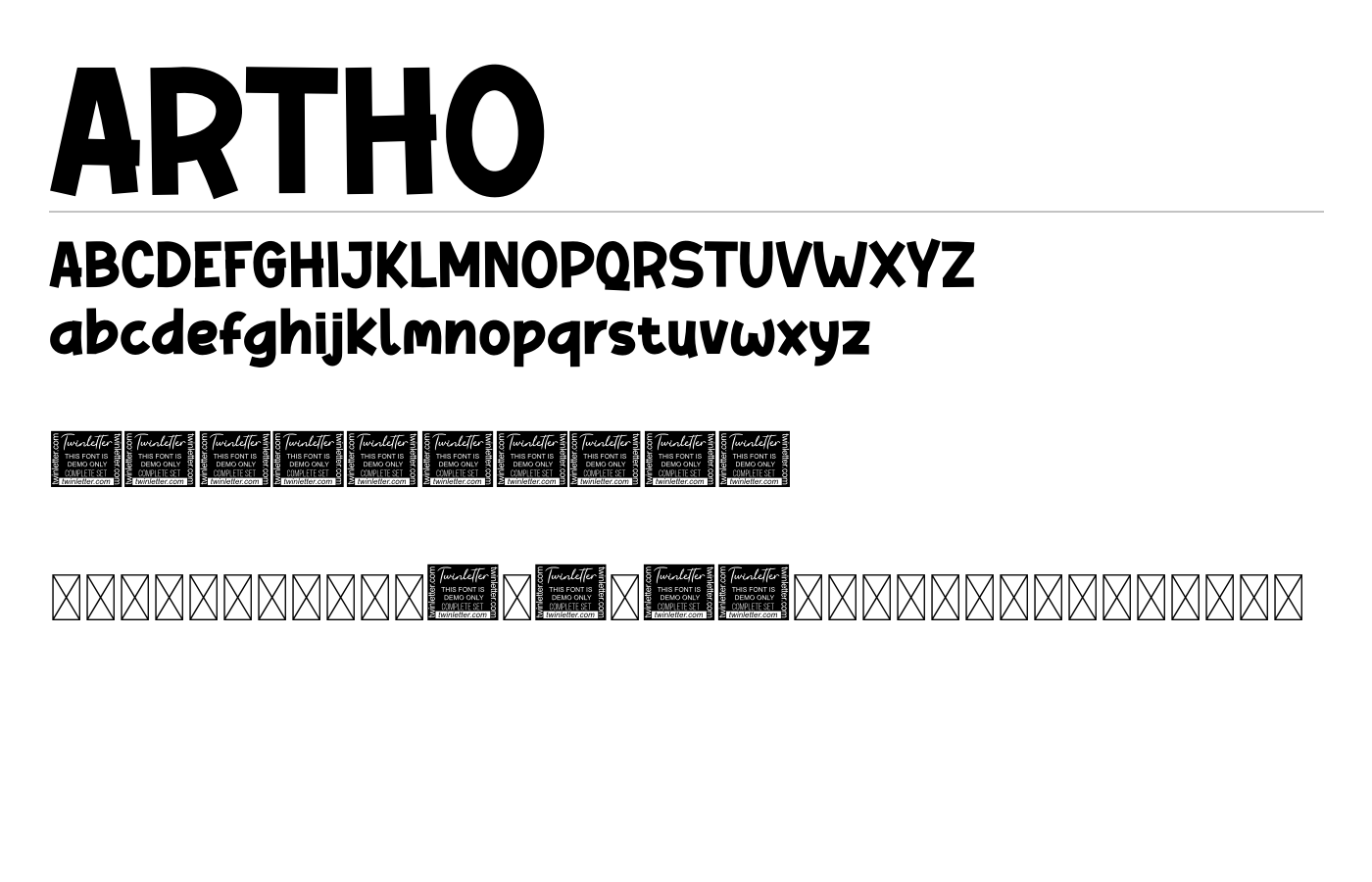
ARTHO is a bold, playful sans serif font with a slightly condensed width and lively, irregular letterforms that give it a fun, approachable character. Its strong weight and chunky strokes make it ideal for eye-catching headlines and creative branding where a casual yet impactful style is desired. This font works well for projects aimed at younger audiences or those seeking a friendly, informal vibe.
ARTHO Font
About ARTHO Font